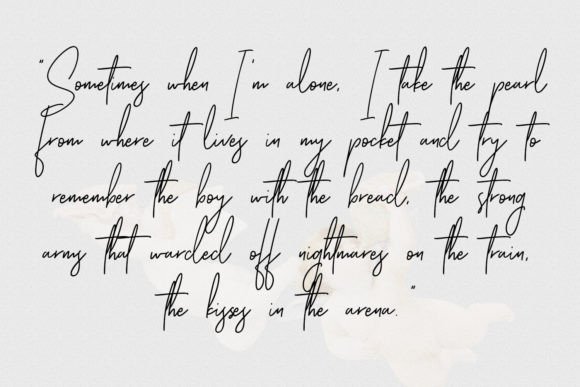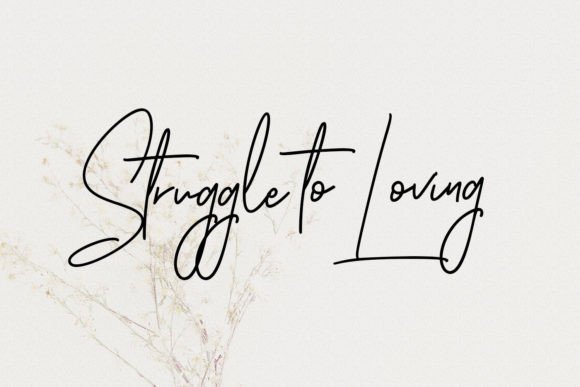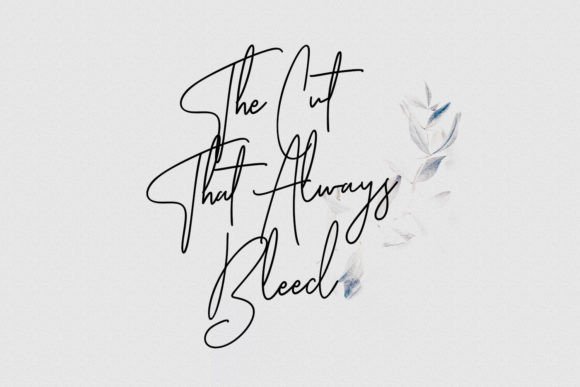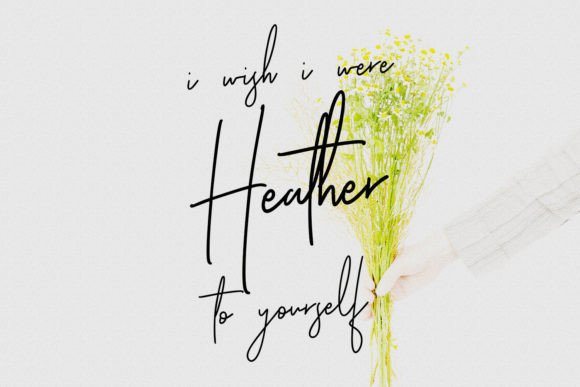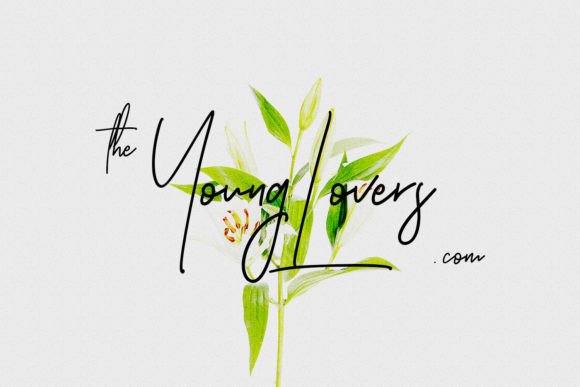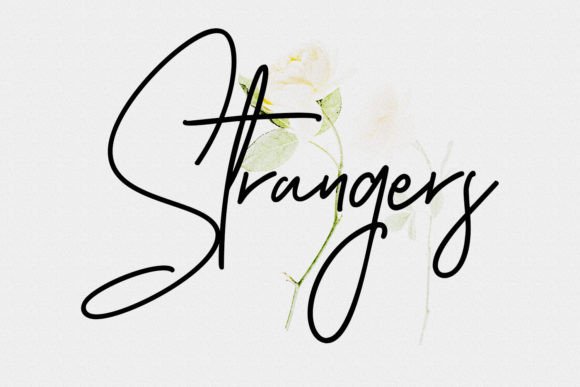
Fruityloops Font: Elevate Your Designs with a Touch of Elegance
In the world of typography, a font can make or break a design. For designers and crafters looking to add a touch of sophistication and modernity to their work, Fruityloops Font is an excellent choice. This modern tall script font boasts a classy, elegant, and contemporary look that’s perfect for a wide range of applications.
What is Fruityloops Font?
Fruityloops Font is a modern script font designed to bring a sense of luxury and refinement to any design project. Its tall and slender letters exude elegance, making it an ideal choice for designers who want to create stunning visual content. Whether you’re working on a logo, branding materials, invitations, stationery, wedding designs, or social media posts, Fruityloops Font is sure to impress.
Key Features of Fruityloops Font
- Modern and Elegant Design: Fruityloops Font features a sleek and contemporary design that’s perfect for designers who want to create modern and sophisticated visual content.
- Tall and Slender Letters: The font’s tall and slender letters add a touch of elegance and refinement to any design project.
- High Versatility: Fruityloops Font can be used for a wide range of applications, including logos, branding, invitations, stationery, wedding designs, social media posts, and more.
- Easy to Read: Despite its elegant design, Fruityloops Font remains easy to read, making it perfect for body text and headlines.
Use Cases for Fruityloops Font
Fruityloops Font is a versatile font that can be used in various design projects. Here are some use cases where Fruityloops Font shines:
- Logos and Branding: Create a lasting impression with a custom logo or branding materials that feature Fruityloops Font.
- Invitations and Stationery: Add a touch of elegance to your invitations, greeting cards, and stationery with Fruityloops Font.
- Wedding Designs: Make your wedding designs stand out with Fruityloops Font, perfect for wedding invitations, programs, and decorations.
- Social Media Posts: Elevate your social media posts with Fruityloops Font, ideal for creating engaging and visually appealing content.
Tips for Using Fruityloops Font
To get the most out of Fruityloops Font, here are some tips to keep in mind:
- Pair with a Sans-Serif Font: Pair Fruityloops Font with a sans-serif font for a modern and clean look.
- Experiment with Font Sizes: Play with different font sizes to create visual hierarchy and add emphasis to your design.
- Use for Headlines and Titles: Use Fruityloops Font for headlines and titles to add a touch of elegance and sophistication.
Fruityloops Font is a modern tall script font that’s perfect for designers and crafters looking to add a touch of elegance and sophistication to their work. With its classy, elegant, and modern look, Fruityloops Font is ideal for a wide range of applications, from logos and branding to invitations and social media posts. By incorporating Fruityloops Font into your design projects, you’ll be able to create stunning visual content that stands out from the crowd.
In conclusion, Fruityloops Font is a versatile and elegant font that’s perfect for designers and crafters looking to create stunning visual content. With its modern and sophisticated design, Fruityloops Font is sure to become a staple in your font collection.